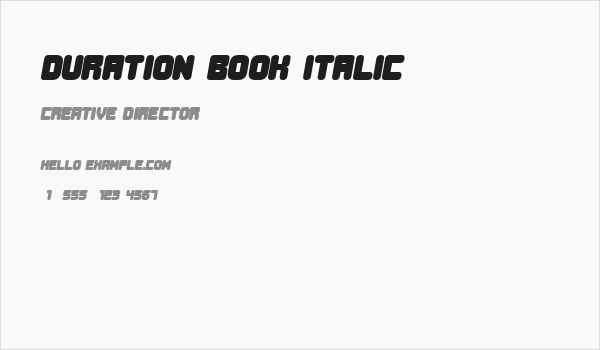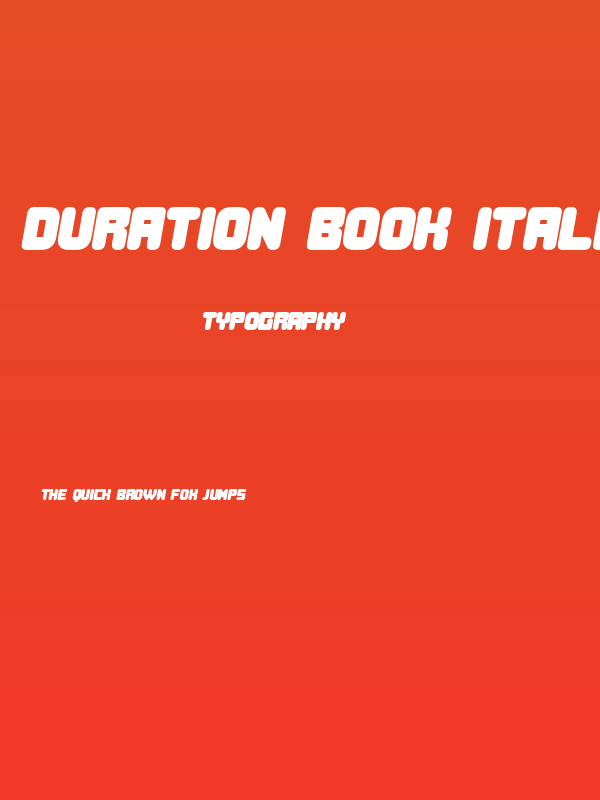
Duration Book Italic Font
Duration Book Italic Description
This font features a bold and rounded style with a modern, playful aesthetic. The characters are thick and have a consistent stroke width, giving them a strong presence on the page. The rounded edges add a friendly and approachable feel, making it suitable for a variety of creative projects. The uppercase and lowercase letters maintain a uniform appearance, while the numerals and special characters complement the overall design. The italic slant adds a dynamic touch, enhancing the font's versatility.
| Proposed Projects | Ideal for branding, advertising, children's books, and playful graphic design projects. |